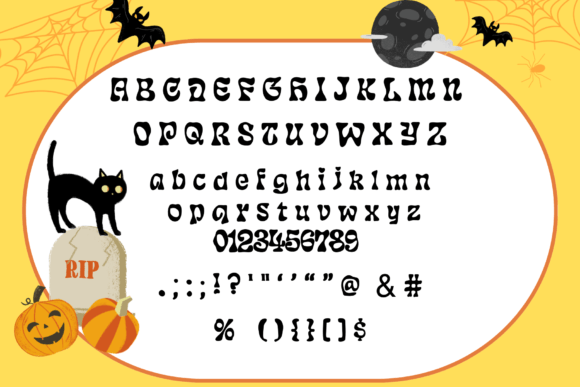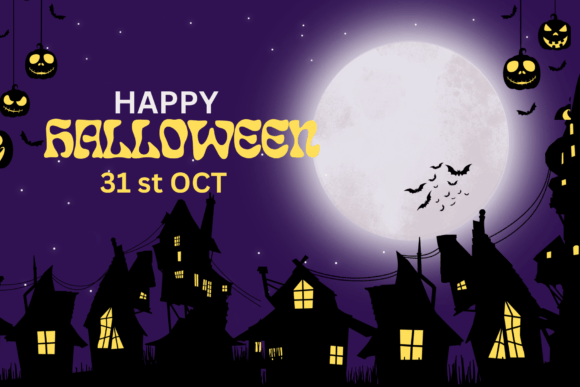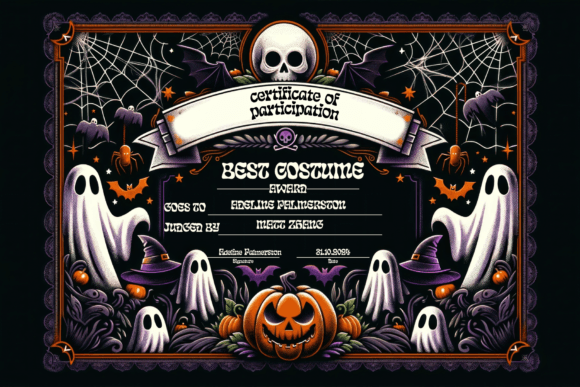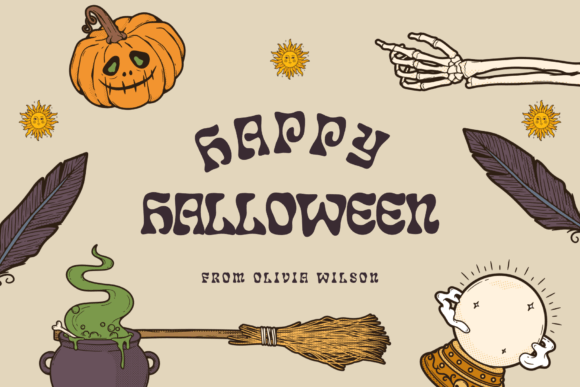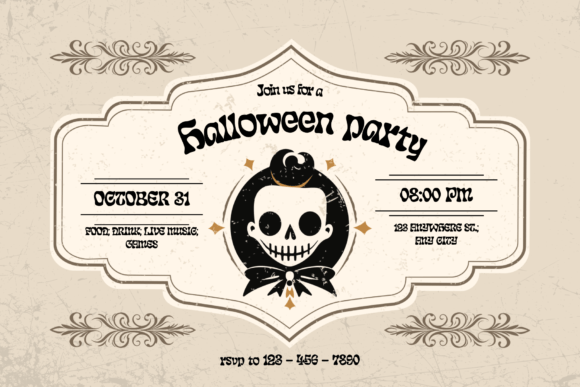
The Purr-fect Font: A Deep Dive into Black Cat Font
I still remember the design project that led me to discover the Black Cat font. I was working on a vintage-themed poster for a local cat cafe, and I needed a font that would capture the playful, retro vibe of the brand. After hours of scrolling through font libraries, I stumbled upon Black Cat – a fun, retro font with wavy, flowing letters that instantly caught my eye. In this article, I’ll share my experience with Black Cat font, its features, and how to make the most of it in your designs.
An Honest Review of Black Cat Font
What I Love About Black Cat Font ✨
• ✅ Unique and playful design: The wavy, flowing letters of Black Cat font make it perfect for eye-catching designs that require a touch of whimsy.
• ✅ Vintage vibe: The font’s retro feel is ideal for designs that require a nostalgic or vintage touch, such as posters, flyers, or social media graphics.
• ✅ Bold and attention-grabbing: The bold letters of Black Cat font ensure that your text stands out, even at smaller font sizes.
• ⚠️ Limited use cases: While Black Cat font is perfect for certain designs, it may not be suitable for more formal or professional projects that require a more traditional font.
• ⚠️ Legibility at small sizes: While the font is bold, it may become less legible at very small font sizes (below 10pt). It’s best to use it at larger sizes for optimal impact.
The Designer Inspiration Behind Black Cat Font
The story behind Black Cat font is one of creative experimentation. According to its designer, the font was inspired by the playful, carefree vibe of 1950s and 60s advertising. The designer wanted to create a font that would capture the whimsy and nostalgia of that era, while also being bold and attention-grabbing.
Font Name Black Cat Font
Author Sirinart
What is the best use case for Black Cat font? Black Cat font is perfect for designs that require a playful, retro vibe, such as posters, flyers, or social media graphics.
Is Black Cat font suitable for body text? No, Black Cat font is best used for headlines or titles. Its bold and playful design makes it less suitable for body text.
Is Black Cat font available in different weights or styles? Currently, Black Cat font is available in a single weight. However, some font libraries may offer variations or similar fonts with different weights or styles.